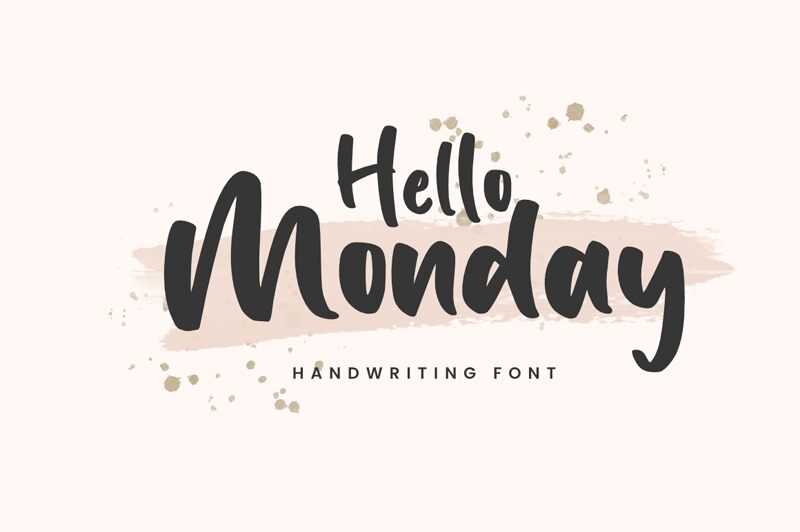
Hello Monday, a charming handwritten font by Viola Type, brings a playful and personal touch to your projects.
Its marker-like strokes add a unique flair to any design, making it perfect for crafting eye-catching logos that capture the essence of your brand. With its natural flow and organic feel, Hello Monday is also an excellent choice for greeting cards, invitations, and personalized stationery. Whether you're working on a whimsical children's book or creating trendy social media graphics, this versatile font will effortlessly enhance your creative endeavors.